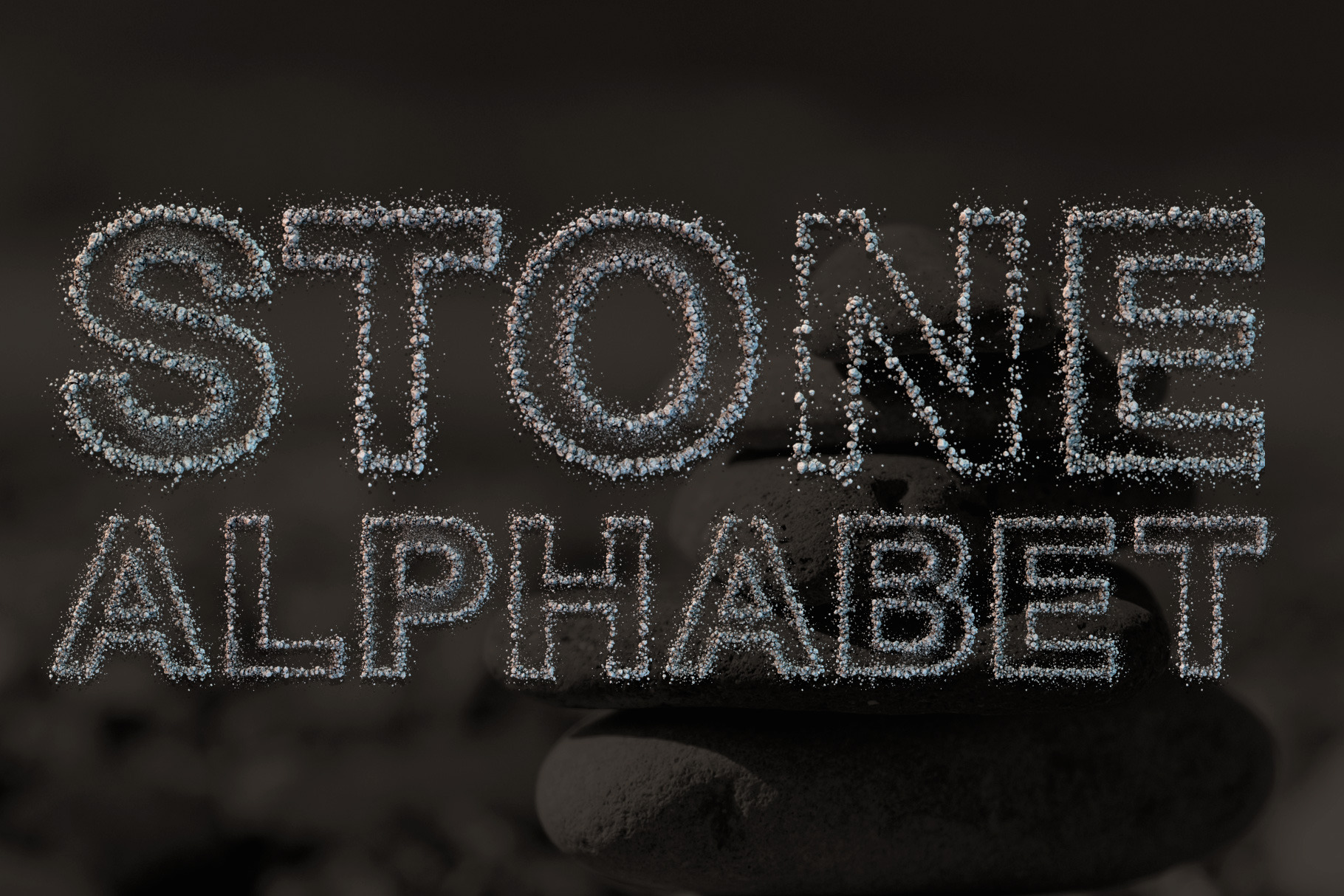
Stone Font
Each letter is modelled and rendered in a 3D Application, also converted into an Opentype SVG (Color) Font.
- Basic western uppercase letters